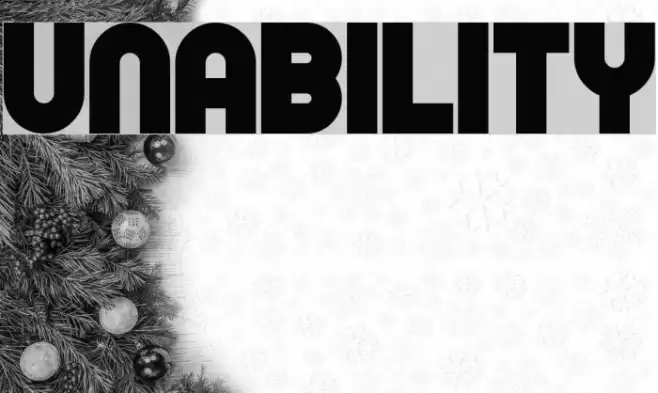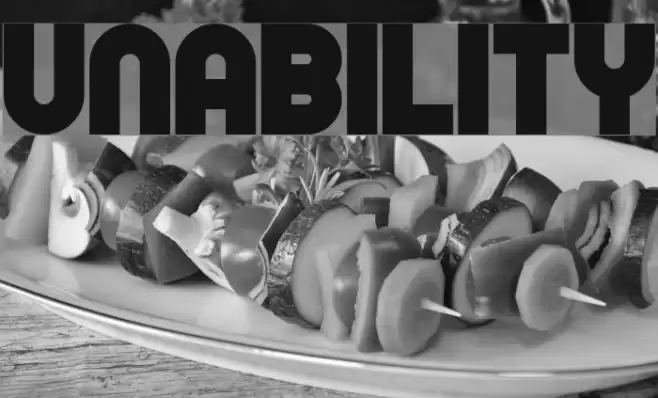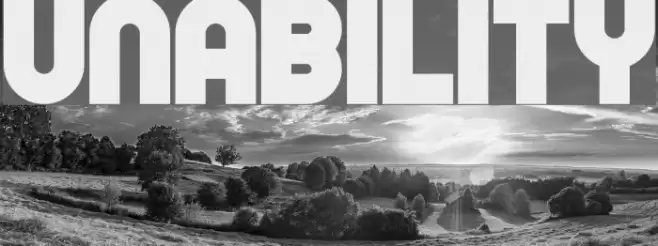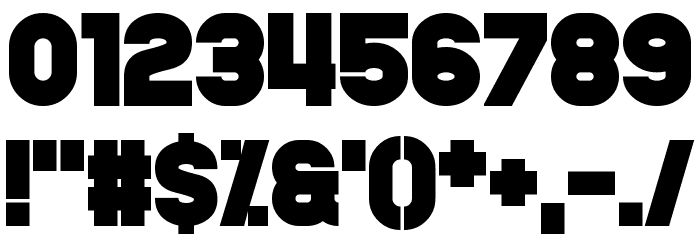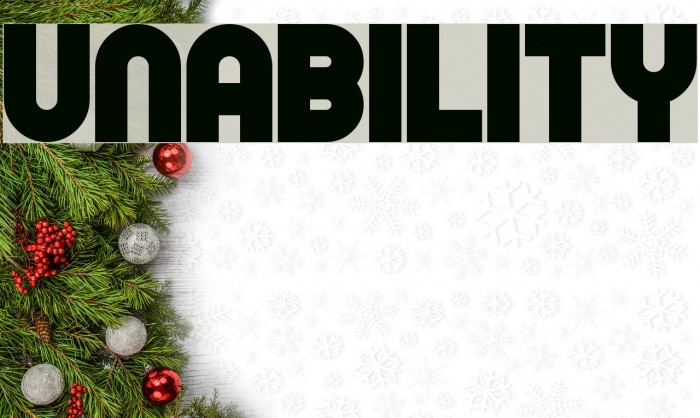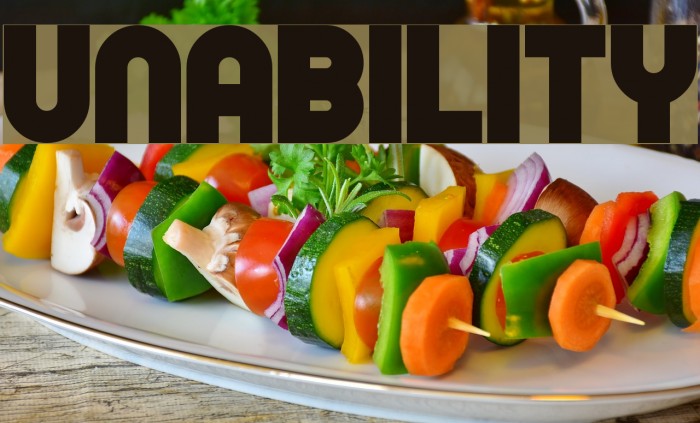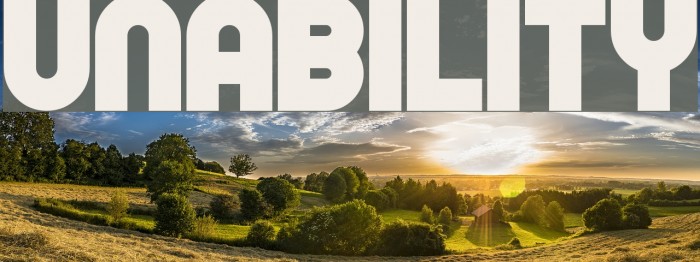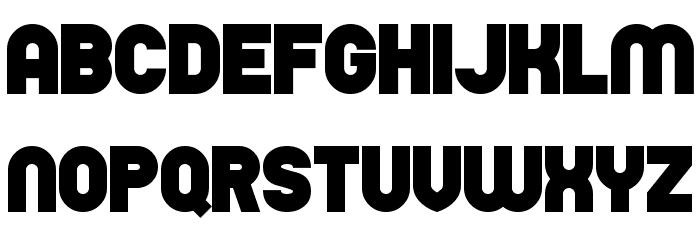
Unability Font
Unability Description
This font features a bold, geometric design with a strong presence. The characters are constructed with thick, uniform strokes, creating a sense of solidity and impact. The rounded edges soften the overall appearance, adding a touch of modernity to the otherwise robust structure. The uppercase and lowercase letters maintain a consistent height, contributing to a cohesive look. The numerals and special characters follow the same design principles, ensuring uniformity across all glyphs. This font's boldness and clarity make it highly legible, even at smaller sizes.
A bold, geometric font with rounded edges and uniform strokes from Uncategorized fonts.
- Proposed Projects: Ideal for branding, posters, headlines, and any design requiring a strong visual impact.